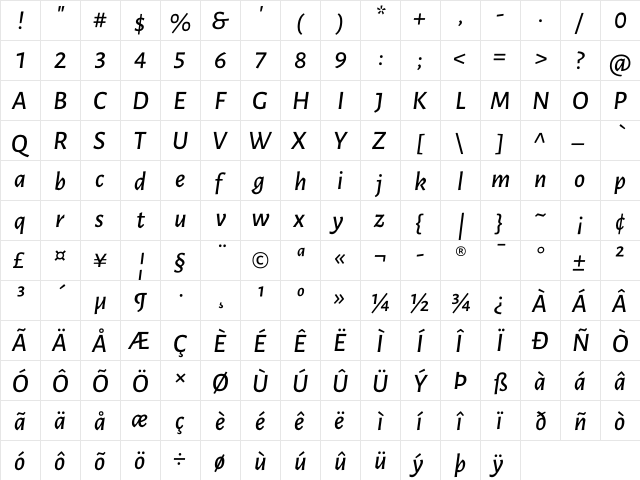
Luna Semi Bold Italic
| Foundry | Huerta Tipografica |
| Designer | Juan Pablo del Peral |
Design Context for Luna Semi Bold Typeface
Luna Semi Bold is a composed and adaptable typeface that performs quietly and consistently across a wide range of design contexts. The dynamic lean of this cut emphasises speed and emphasis in any layout. Its bold stroke weight gives it real presence on the page.
Pro Tip: Use Luna Semi Bold for emphasis, pull quotes, and subheadings where its slanted energy can add rhythm to the layout.